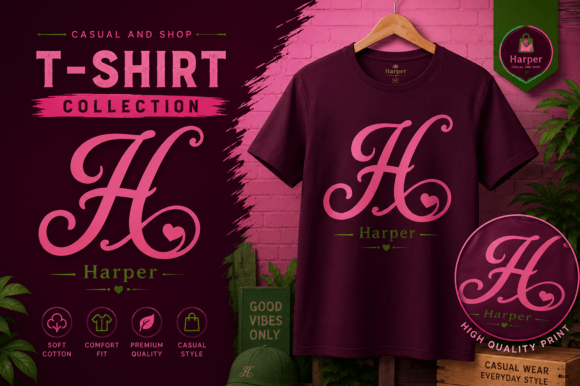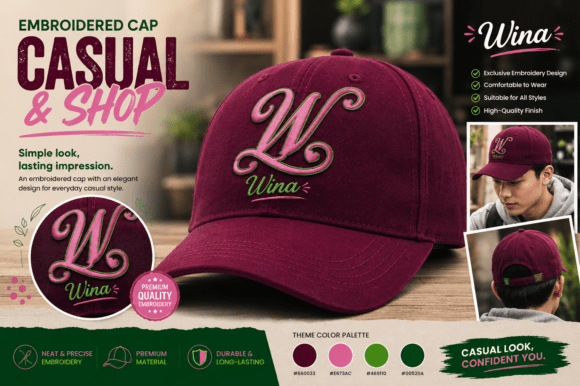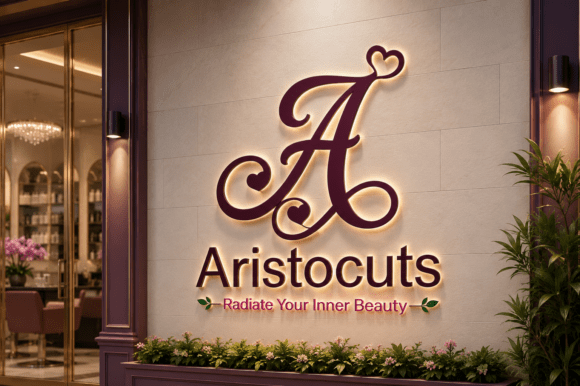
Introduction to Ro Monogram Font
Have you ever stumbled upon the perfect design element that elevates your entire creative project to new heights? For many designers, that ‘aha’ moment comes with discovering the Ro Monogram Font – a stunning, high-quality design resource that effortlessly blends classic charm with modern sophistication. This enchanting font is more than just a pretty face; it’s a versatile tool that can add an air of luxury to any design, whether it’s a fashion logo, beauty branding, or personal name adornment.
As a designer, you know the importance of finding the right design elements to bring your vision to life. The Ro Monogram Font is a valuable addition to any design arsenal, offering a range of benefits that make it an ideal choice for designers of all levels. With its transparent background and seamless fit for both print and digital platforms, this font is a game-changer for anyone looking to add a touch of elegance to their designs.
Key Features of Ro Monogram Font
- High-quality design for creative projects: The Ro Monogram Font is designed to provide a premium look for your designs, making it an excellent choice for various creative projects.
- Transparent background: This font features a transparent background, allowing you to easily place it over any image or design without any distractions.
- Perfect for design resources: The Ro Monogram Font is an excellent addition to any design resource collection, offering a unique and stylish touch to your designs.
- Unique monogram design: The Ro Monogram Font features a distinctive monogram design, setting it apart from other fonts and making it a great choice for personal and professional projects.
Honest Review: Ro Monogram Font
As a designer, I’ve had the pleasure of working with various fonts, and I must say, the Ro Monogram Font has been a delightful addition to my design resource collection. ✨ Its high-quality design makes it perfect for any creative project that requires a touch of elegance and sophistication.
One of the standout features of this font is its transparent background, which makes it incredibly versatile and easy to use. I’ve used it for everything from logos to social media graphics, and it always looks fantastic.
Here are some of the things that work well with the Ro Monogram Font:
- Transparent background makes it easy to use
- Only comes in a few different weights, which may limit its use in certain situations
- Not suitable for large blocks of text, as it can be difficult to read
Overall, I’m really impressed with the Ro Monogram Font. It’s a high-quality design resource that’s perfect for designers looking to add a touch of sophistication to their creative projects. ⚠️ Just be mindful of its limitations, and it’s sure to be a valuable addition to your design collection.
The Ro Monogram Font is a high-quality design resource that can elevate your creative project to the next level. With its unique and stylish design, this font is perfect for adding a touch of elegance to your work.
- Use it to create eye-catching headings and titles.
- Combine it with other fonts to create a unique and stylish design.
- Experiment with different font sizes and colors to find the perfect look for your project.
The Ro Monogram Font is perfect for a variety of use cases, including:
- Business cards and marketing materials.